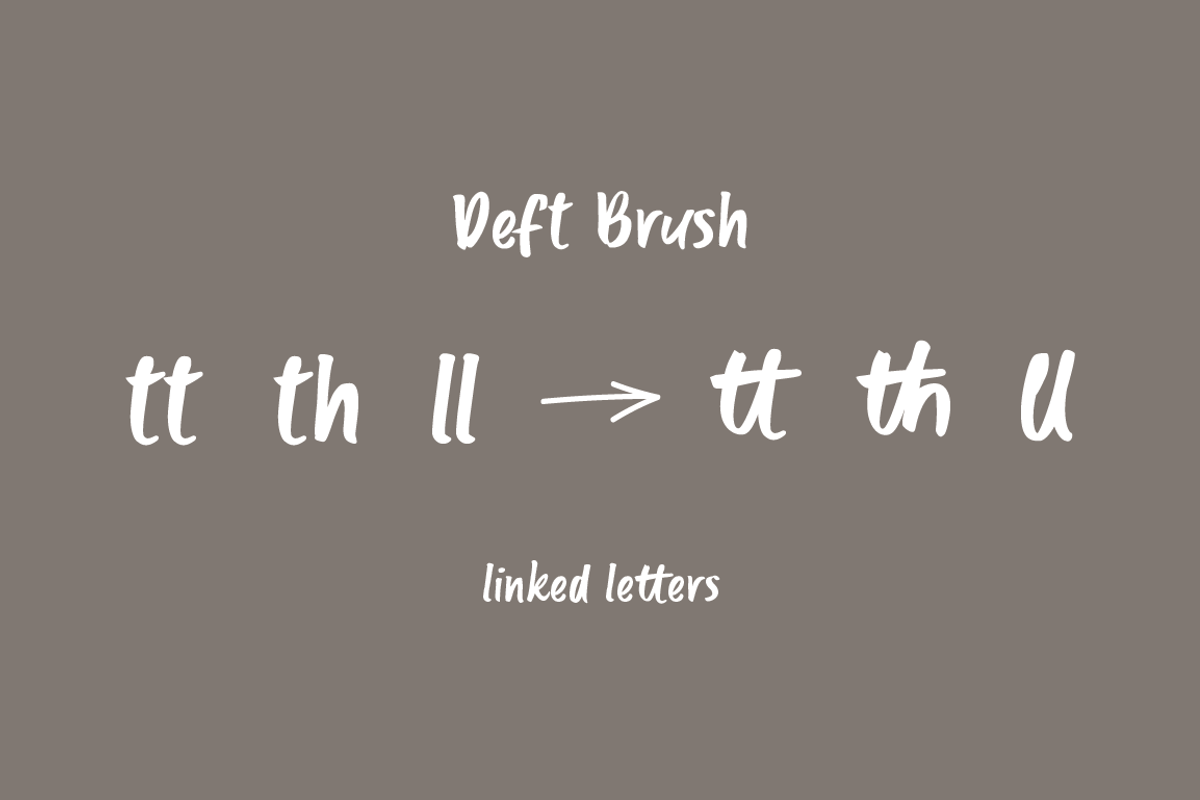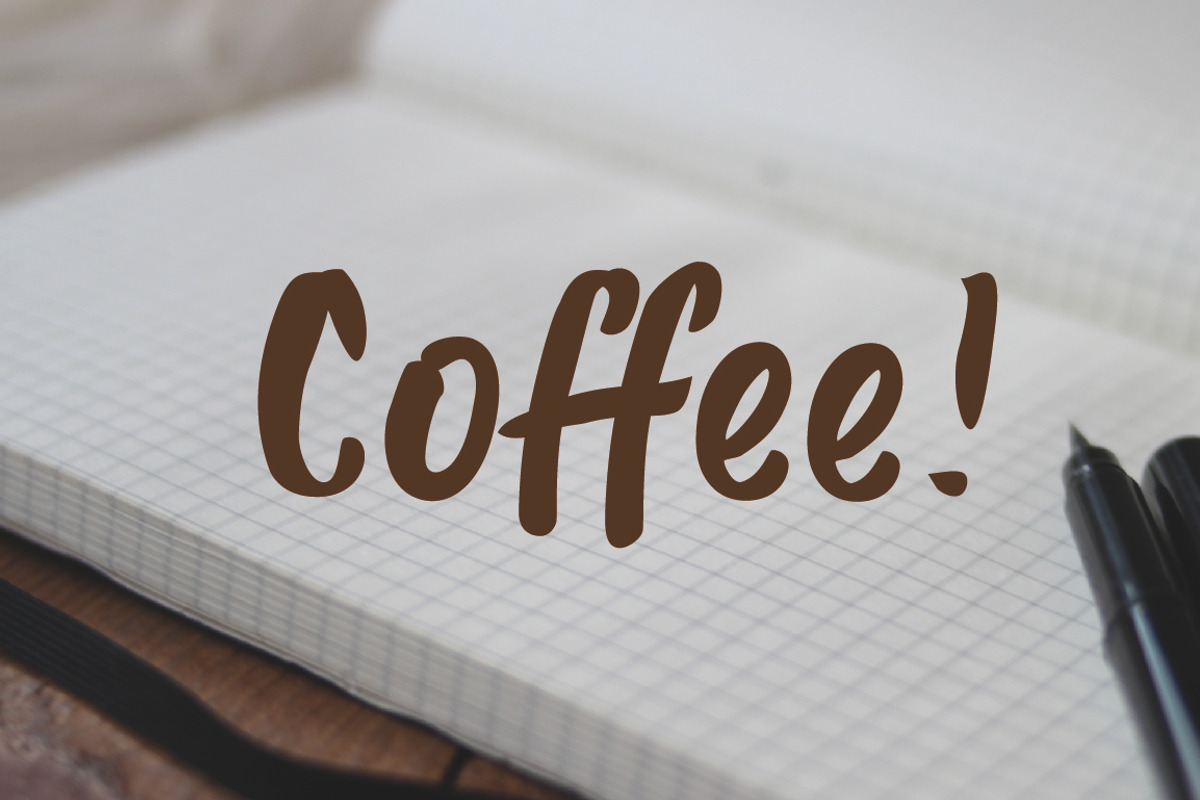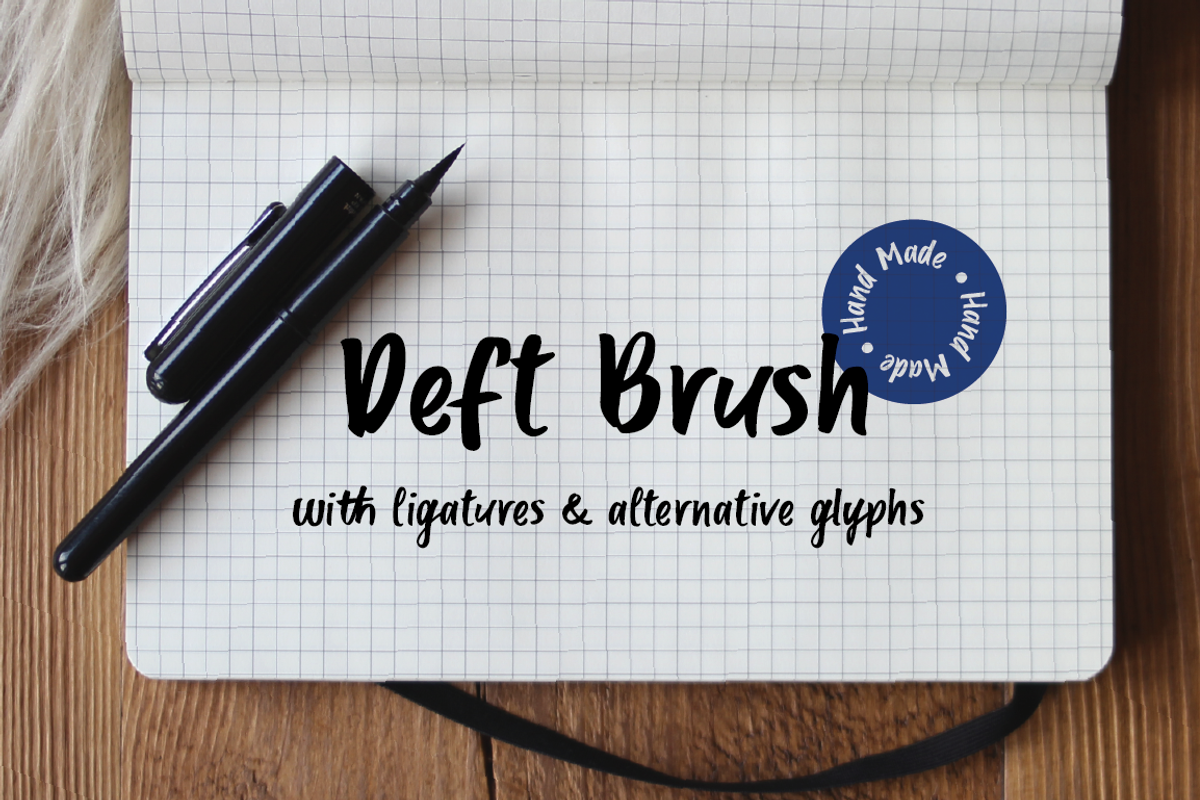
Deft Brush - Hand Drawn Font
Introducing Deft Brush by We are colt
Deft - neatly skilful and quick in one's movements
A beautiful brush font created directly from original hand-drawn characters. Deft Brush features a number of ligatures and alternative glyphs to add to the hand-drawn look.
A great front for bold headlines, titles and crafty logotypes, invitations, greeting cards, magazine layout, prints and posters. Add a hand brushed touch to your lettering, logo designs, quotes, packaging and social media.
- Upper and lowercase